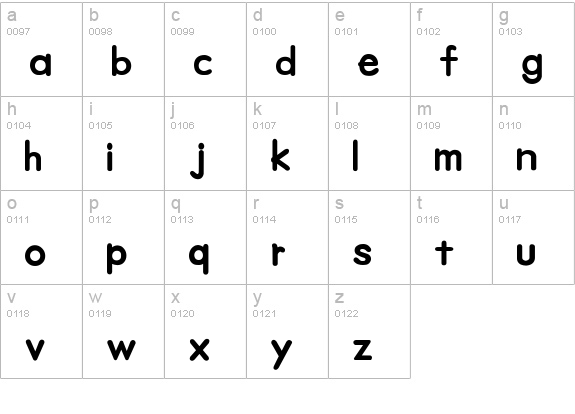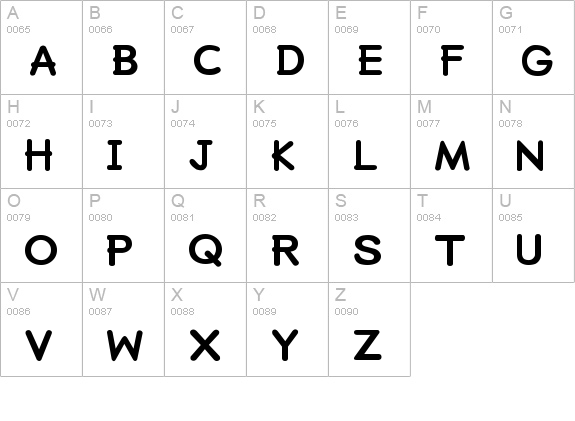
saru (sRB) Font Details
Introducing saru (sRB) font, a stunning and versatile typeface that is sure to captivate your audience. With its sleek and modern design, saru (sRB) font adds a touch of elegance and sophistication to any project. But what sets saru (sRB) font apart is its accessibility. This incredible font is not only visually appealing, but it is also free! Yes, you read that right. saru (sRB) font can be freely downloaded at FontsMarket.com, allowing you to enhance your designs without breaking the bank. Whether you're a graphic designer creating a logo, a web developer designing a website, or a content creator looking to add a touch of uniqueness to your work, saru (sRB) font is the perfect choice. Its clean lines and balanced proportions make it suitable for a wide range of applications, from headlines to body text. With saru (sRB) font, you have the freedom to express your creativity without limitations. Its extensive character set includes uppercase and lowercase letters, numerals, punctuation marks, and various special characters, ensuring that you have all the tools you need to bring your vision to life. Don't miss out on this incredible opportunity to elevate your design projects with saru (sRB) font. Download it for free now at FontsMarket.com and let your imagination run wild. Embrace the beauty and versatility of saru (sRB) font and watch as your designs come to life with a touch of elegance and professionalism.